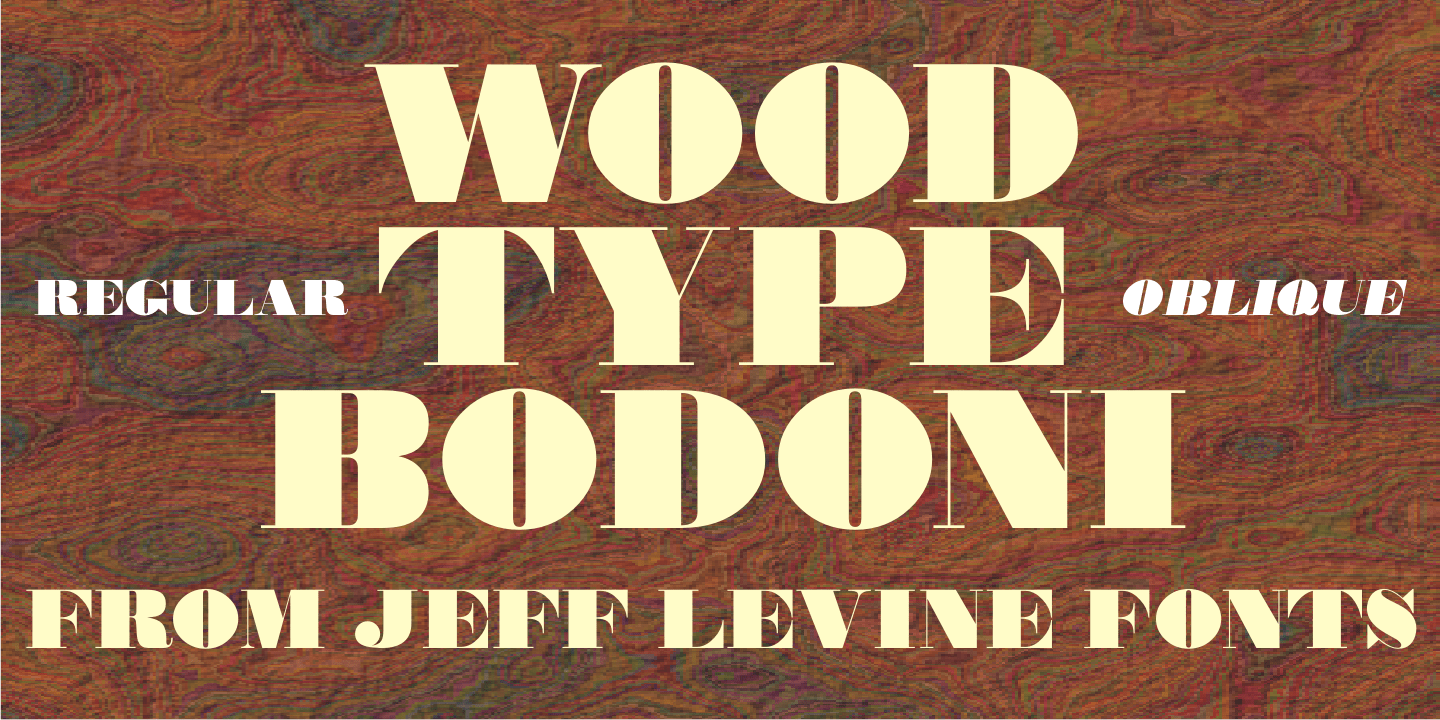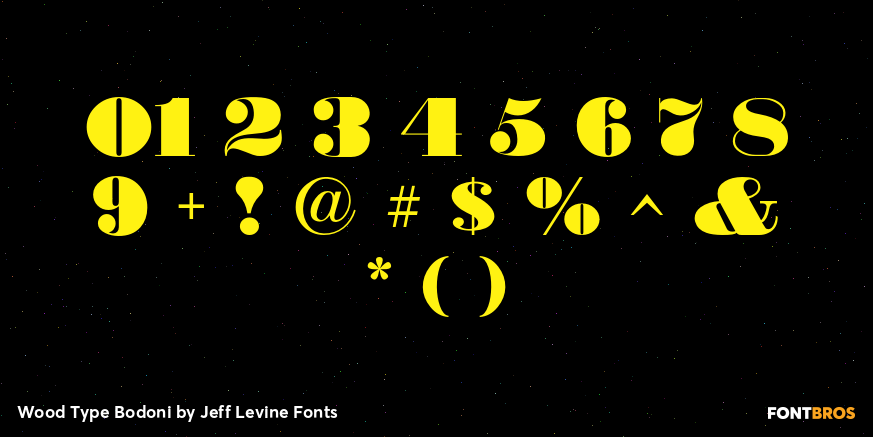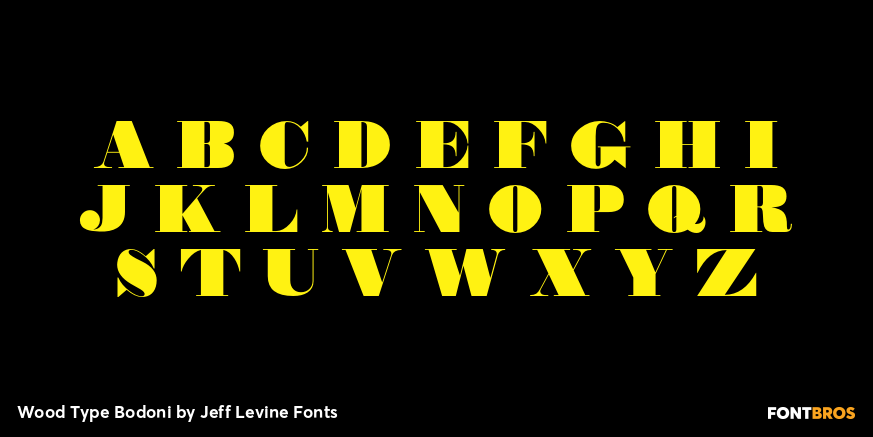
Wood Type Bodoni
Wood Type Bodoni JNL is a variant of the popular ultra bold version of the classic Bodoni design, with variants in character widths and shapes.
Based on a vintage set of wood type, the 'hairline' strokes of the 4 and 8 have been made ever-so-slightly thicker in spots to add a modest amount of additional contrast.
Wood Type Bodoni JNL Regular by Jeff Levine Fonts